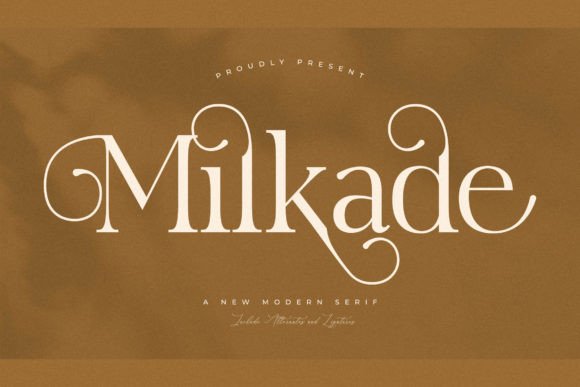
Introducing Milkade Font, the epitome of elegance and sophistication for your design projects. Created by Storytype Studio, this exquisite serif font is specifically designed to add a touch of class to your invitations, cards, and more.
Capture the attention of your audience with Milkade's delicate lines and ornate serifs. Its timeless beauty exudes a sense of tradition and authority, making it an irresistible choice for those seeking a touch of refinement.
Whether you're crafting body text or headlines, Milkade is a versatile font that effortlessly adapts to any context. Elevate your designs with its graceful curves and stylish features, creating an unforgettable visual experience for your viewers.
Imagine the impact of Milkade Font on your wedding invitations. Its elegant strokes will infuse your cards with an undeniable charm, leaving a lasting impression on your guests. Let your love story unfold with every letter, as Milkade adds a touch of romance and sophistication to your special day.
Not only is Milkade perfect for weddings, but it also excels in other design projects. Stand out from the crowd with professional and impactful business cards. Milkade's refined serifs will lend an air of credibility and expertise to your brand, leaving a lasting impression on potential clients.
The appeal of Milkade Font goes beyond traditional print materials. With its eye-catching style, this font can enhance your website's typography, elevating your online presence. Create a captivating user experience with Milkade's timeless charm, inviting visitors to explore your content further.
In a world where first impressions matter, Milkade Font ensures that yours is unforgettable. Its captivating elegance and refined aesthetics will grab the attention of your target audience, leaving them eager to learn more about your brand.